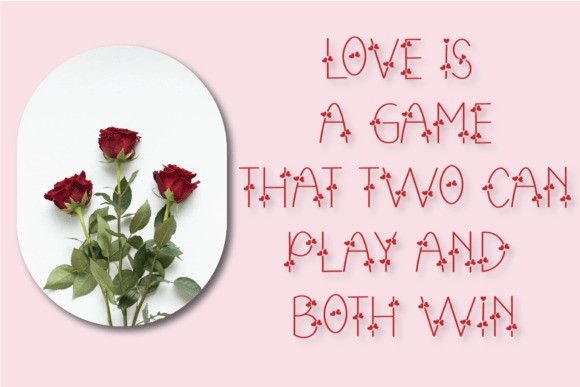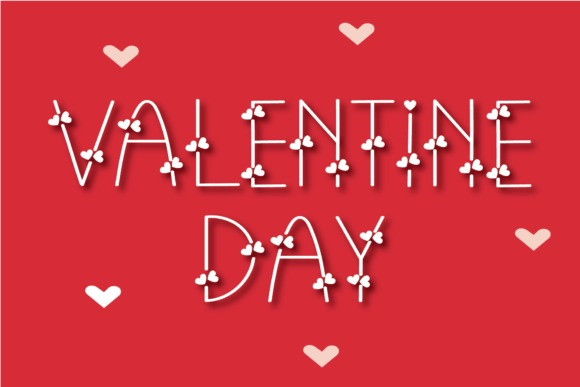
Pinky Love Display Font
Pinky Love Display Font is a delicate, cute, and stylish handwritten font. This display font features little hearts designs. It’s perfect for greeting cards, headlines, wedding themes, Christmas, birthdays quotes, stickers, and more.